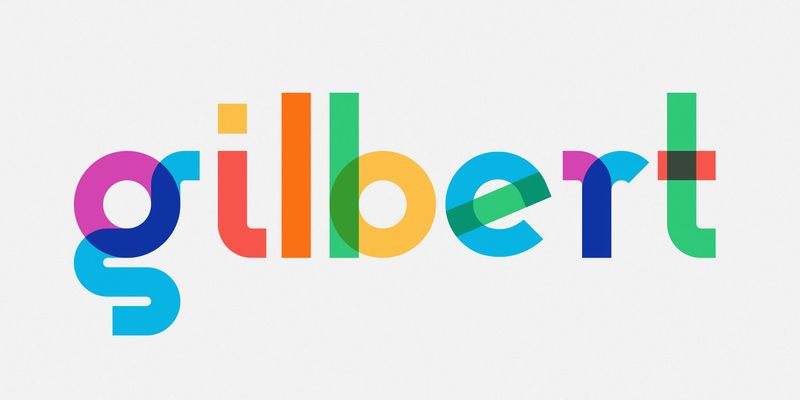
###Gilbert is a tribute font to honor the memory of Gilbert Baker, the creator of the iconic Rainbow Flag. This colorful typeface was designed to express diversity and inclusion. It is part of the [TypeWithPride](https://www.typewithpride.com/) initiative, a collaboration between [NewFest](https://newfest.org/), [NYC Pride](https://2019-worldpride-stonewall50.nycpride.org/), [Ogilvy](https://www.ogilvy.com/) and [Fontself](https://www.fontself.com/). Gilbert Color is available as an OpenType-SVG color font (which are currently not visible in Google Chrome) as well as an animated font for After Effects by [Animography](https://animography.net/products/gilbert). You can learn more about color fonts [here](https://www.colorfonts.wtf/), and more about how to use them in Adobe apps [here](https://helpx.adobe.com/fonts/using/ot-svg-color-fonts.html). #[Check out Gilbert Color in action](https://www.typewithpride.com/)